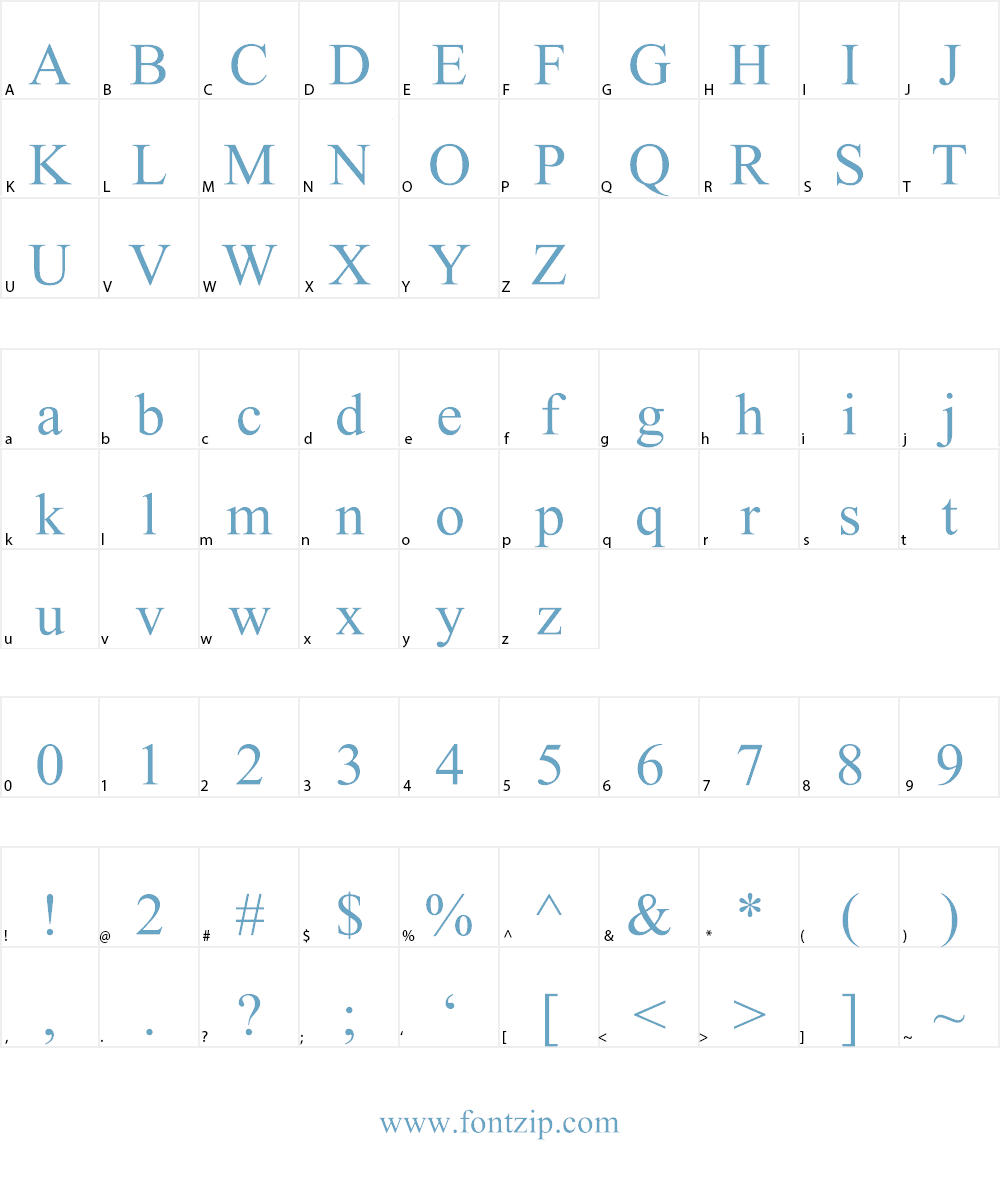
Yagpo Unicode Font it is Tibetan Unicode OpenType font which support full 0x0F00 and GB18030 code table. It contain about 10600 letters which include all letters from Baikal Lake Enlightenment Stupa Zung texts, Kanjur, Tenjur and Open Source Buddhism Library, ACIP and TBRC texts.